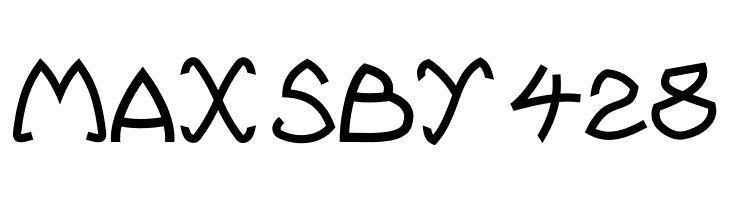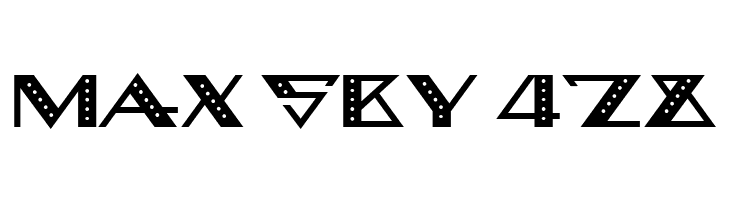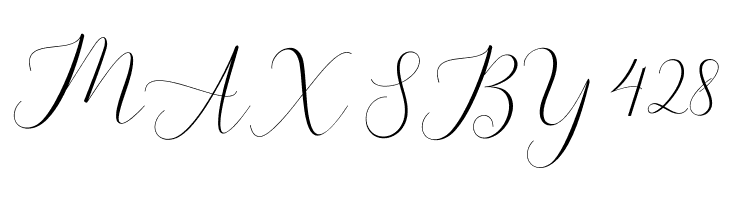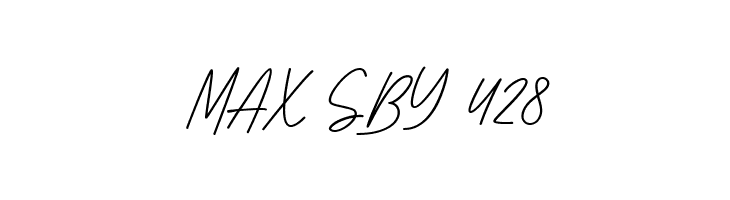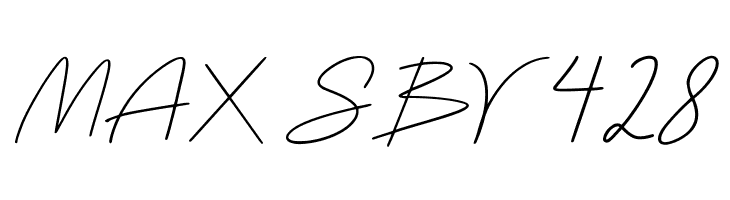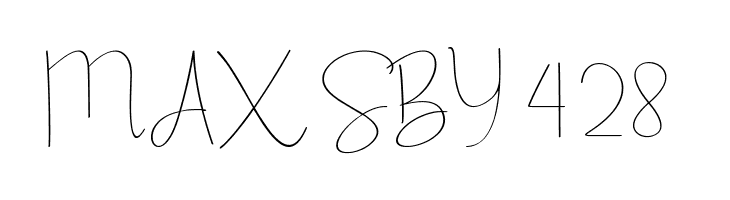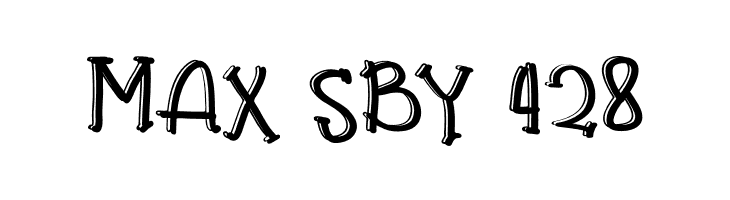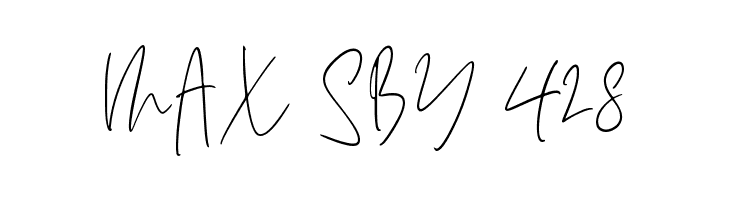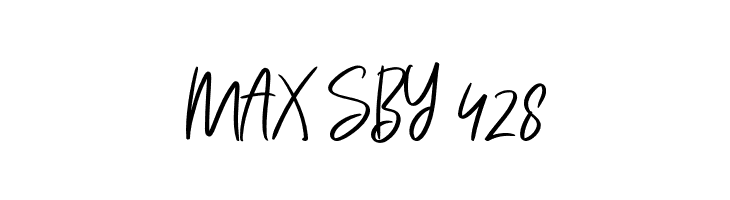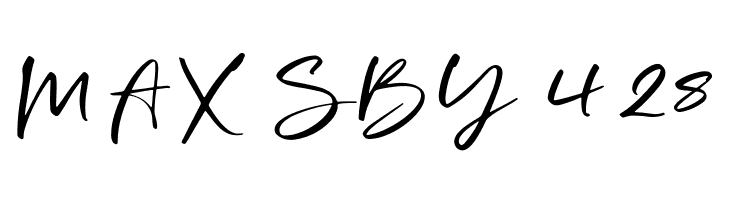
A flowing, elegant script font with ornate uppercase and smooth lowercase letters.
A whimsical and decorative font with elegant curls and flowing lines.
A bold, geometric font with strong visual impact and modern appeal.
An elegant script font with flowing, intricate letterforms and a modern calligraphic style.
A modern, continuous line font with elegant, interconnected characters.
A dynamic, cursive script font with fluid, connected letters and varying stroke thickness.
Elegant script font with a handwritten style.
A dynamic and elegant script font with smooth, flowing connections.
A clean, modern font with geometric influences and consistent stroke width.
A modern, elegant script font with flowing, cursive lines.
A modern, elegant font with clean lines and slight stroke contrast.
A modern serif font with elegant, elongated letterforms and prominent serifs.
A lively and expressive handwritten font with dynamic strokes.
A lively handwritten font with fluid strokes and a dynamic style.
An expressive handwritten font with dynamic strokes and a playful aesthetic.
A bold, playful font with rounded edges and consistent thickness.
An elegant, flowing script font with modern, elongated characters.
A bold, geometric font with modern, decorative elements and dot patterns.
A playful, hand-drawn font with dynamic strokes and a whimsical style.
A playful, hand-drawn font with bold, rounded strokes and a whimsical style.
A lively, handwritten font with fluid, flowing letterforms and a playful, casual appearance.
A delicate, flowing script font with elegant, thin lines and whimsical curves.
A playful, cursive font with bold, interconnected letters and a whimsical style.
A bold, brush-style font with dynamic, hand-drawn strokes.
A graceful script font with elegant, flowing strokes.
A sophisticated script font with flowing, high-contrast strokes.
An elegant, flowing script font with ornate uppercase and smooth lowercase letters.
A modern, handwritten font with elegant, flowing characters.
A graceful, flowing handwritten script with elegant curves and loops.
A bold, elegant script font with flowing, cursive letterforms.
A modern, elegant script font with flowing, cursive characters.
A dynamic, expressive handwritten font with bold, fluid strokes.